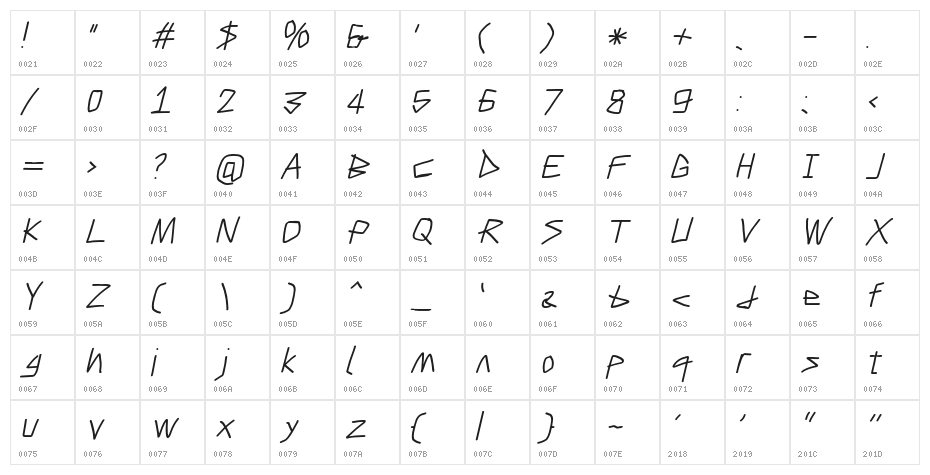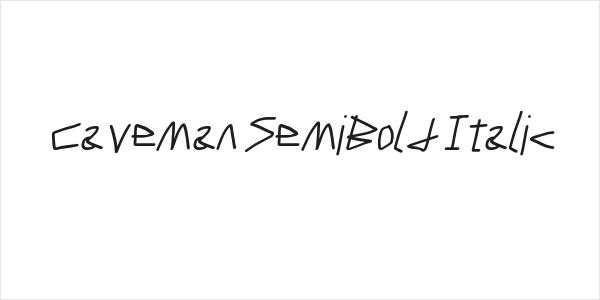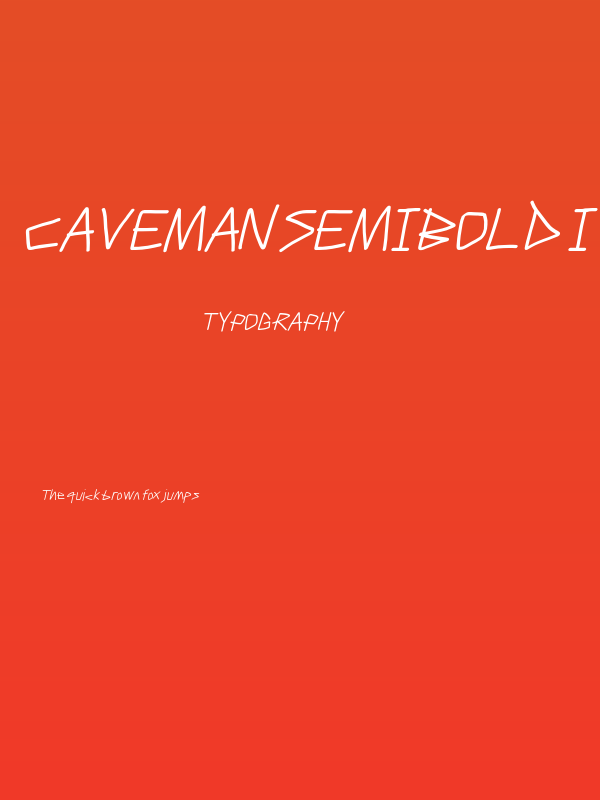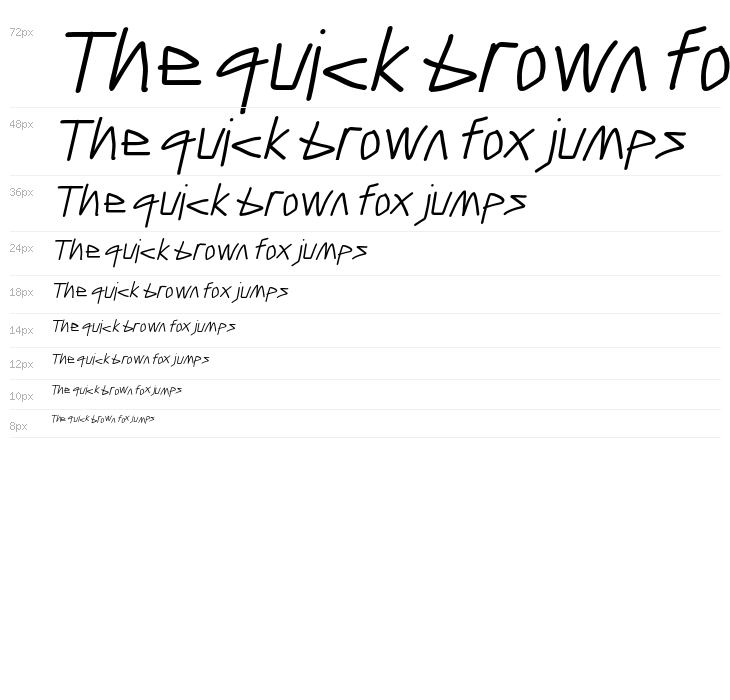
Caveman SemiBold Italic Font
Caveman SemiBold Italic Description
This font features a playful and rugged design, reminiscent of primitive or hand-drawn styles. The characters are slightly slanted, giving an italicized appearance, and the strokes are uneven, adding to its informal and dynamic feel. The uppercase and lowercase letters maintain a consistent style, with angular lines and a sense of movement. Numbers and special characters follow the same aesthetic, ensuring a cohesive look across all glyphs. The font's unique style makes it suitable for projects that require a touch of whimsy or a rustic, handmade vibe.
| Proposed Projects | Ideal for children's books, themed event posters, or branding for artisanal products. |